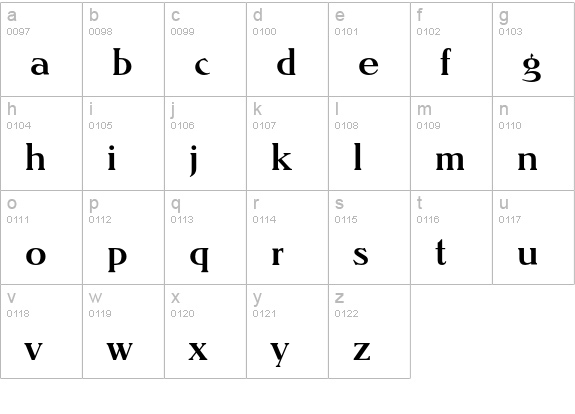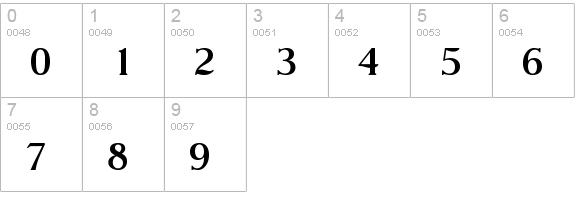
NevadaEF-Medium is a balanced, medium-weight variant in the NevadaEF typeface family \xE2\x80\x94 well suited to sub-headlines, navigation, and balanced editorial work.
The NevadaEF-Medium font exudes a sense of modern elegance and sophistication. Its sleek lines and balanced letterforms make it a versatile choice for a wide range of design projects. Whether you're creating sleek branding materials, stylish editorial layouts, or eye-catching signage, this font will elevate your work to the next level. What's even better is that the NevadaEF-Medium font is available for free download at FontsMarket.com. This means that you can access this high-quality typeface without any cost, making it a valuable addition to your font collection. Don't miss out on the opportunity to enhance your designs with the NevadaEF-Medium font today!